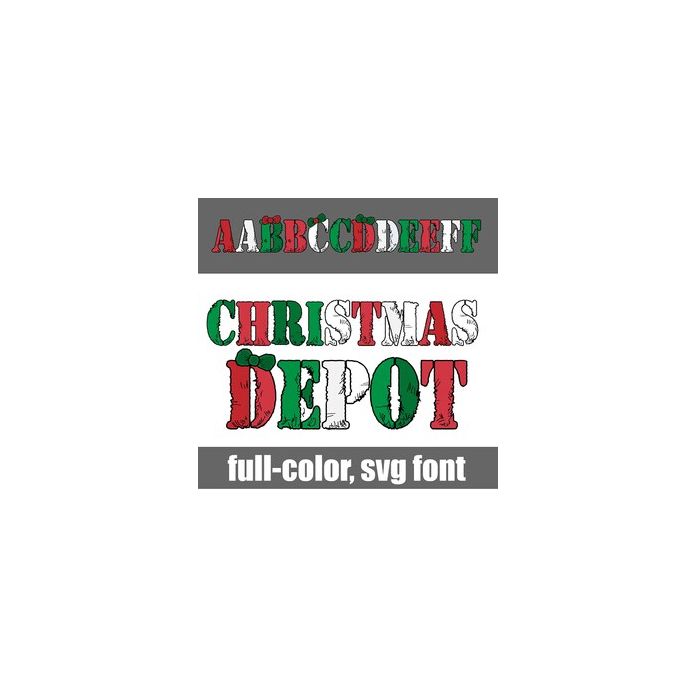
This fun, full-color font features grungy, stenciled lettering in a Christmas color palette. There is an alt case w/ additional colors you can access through your system or Silhouette's glyph map.